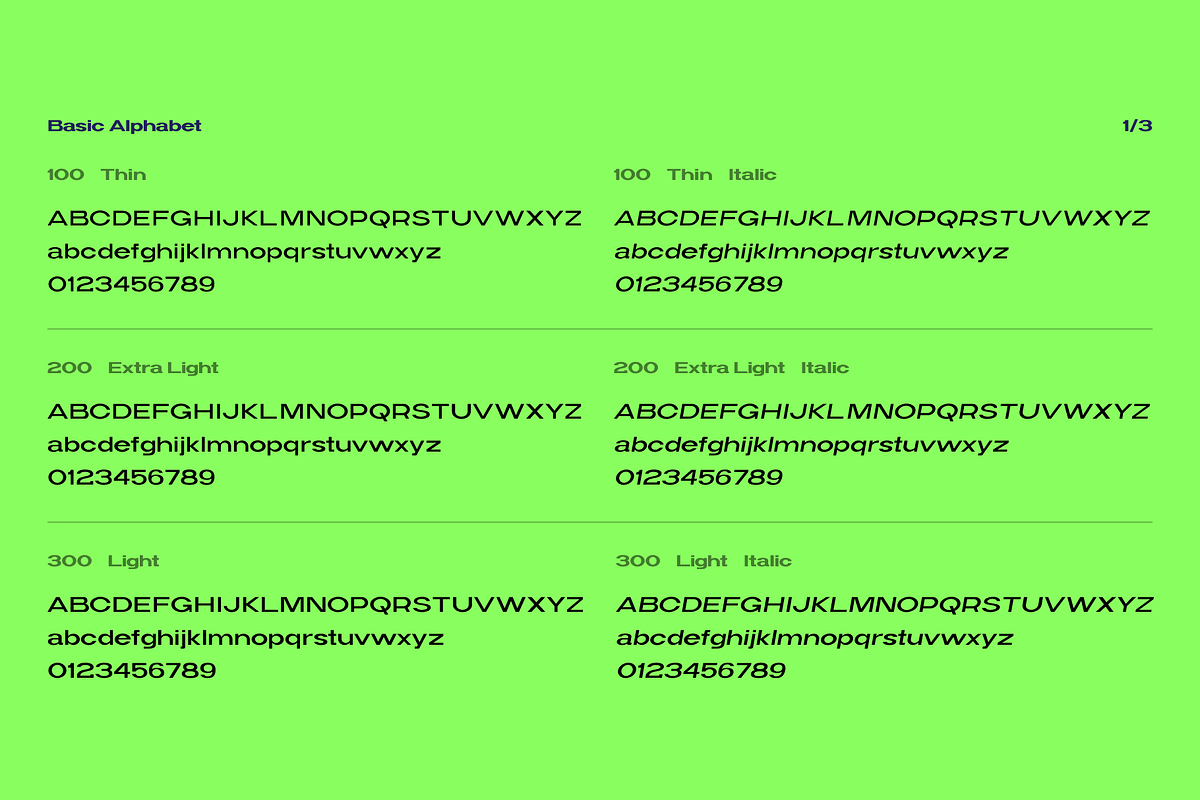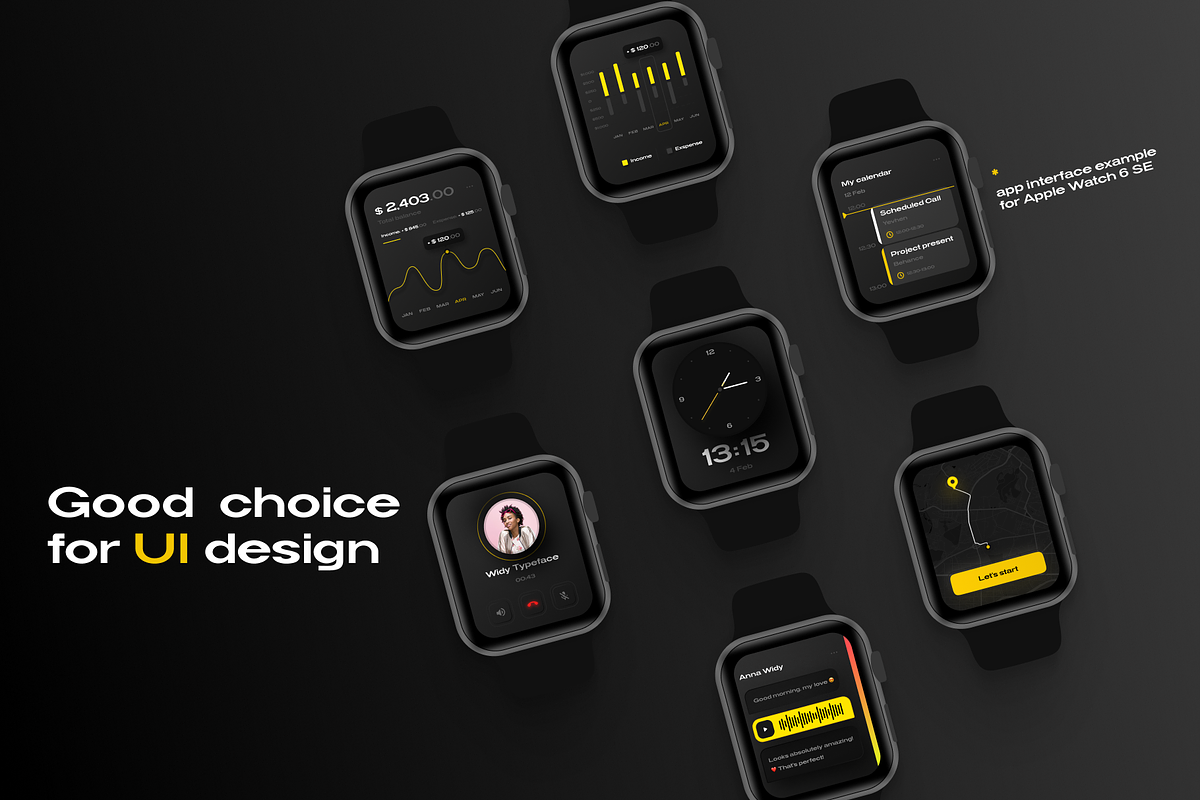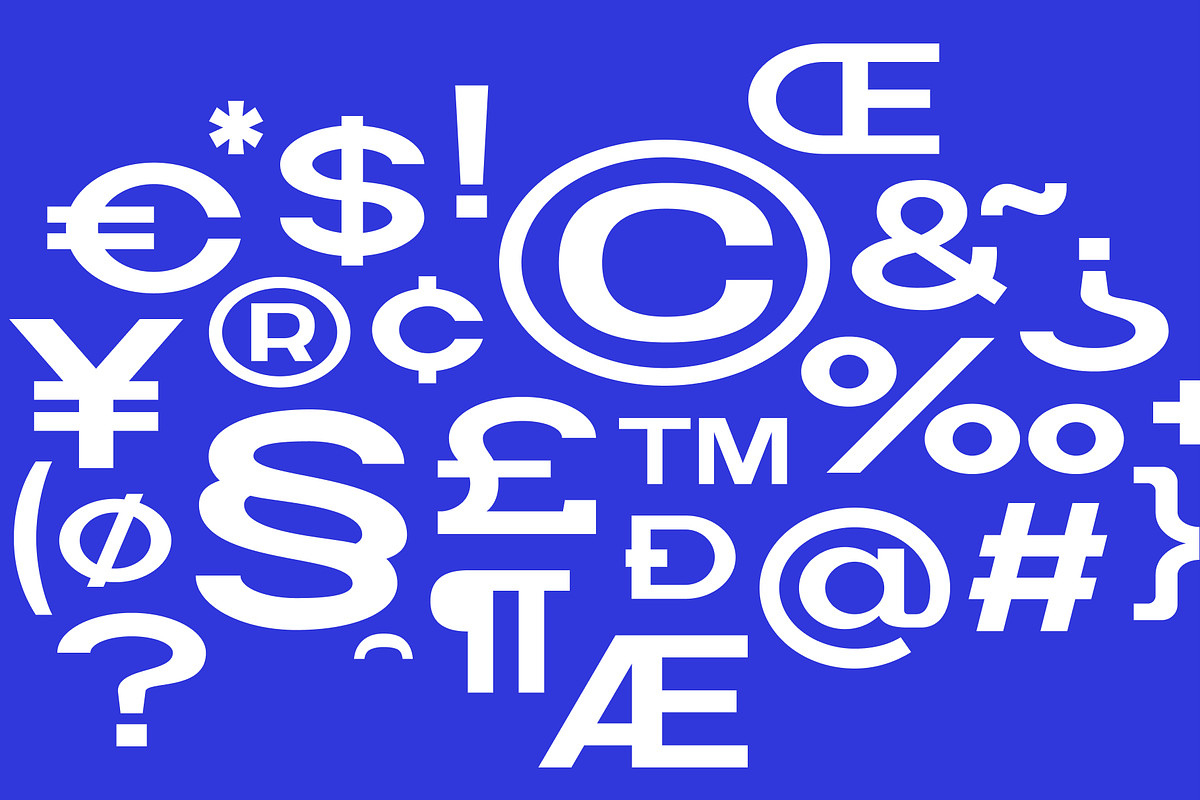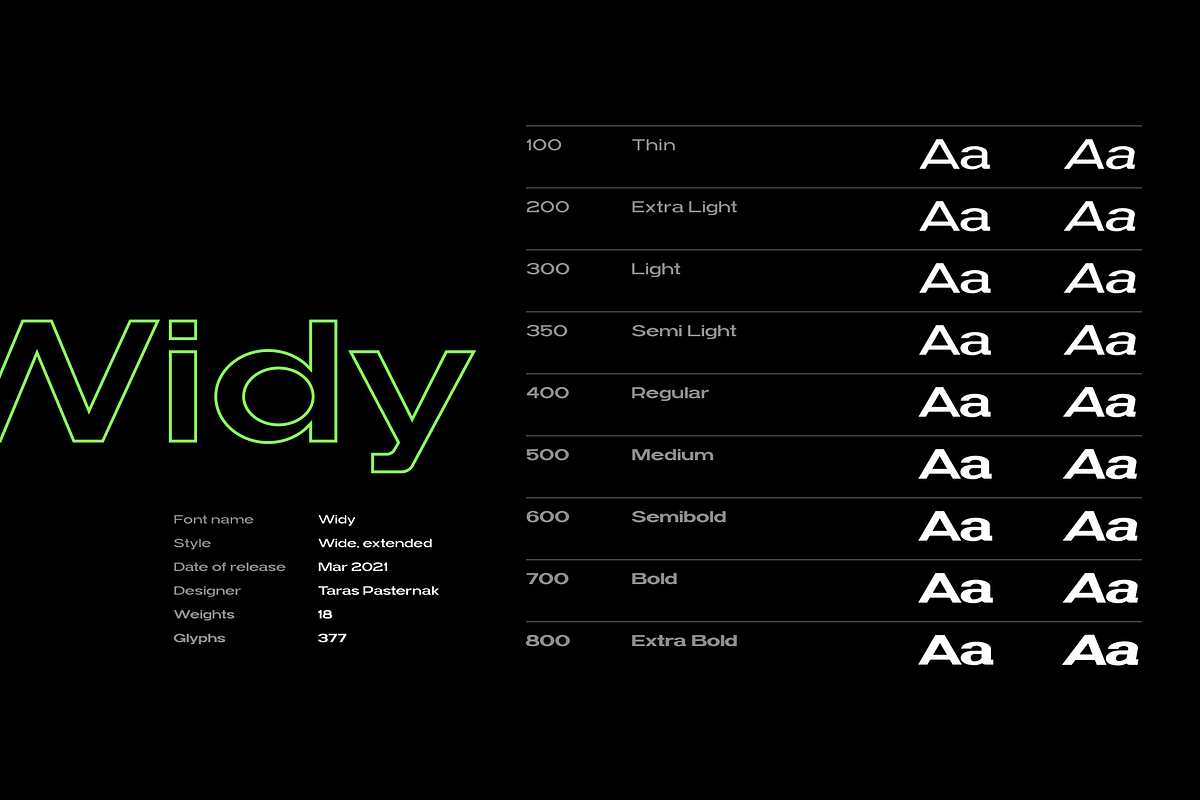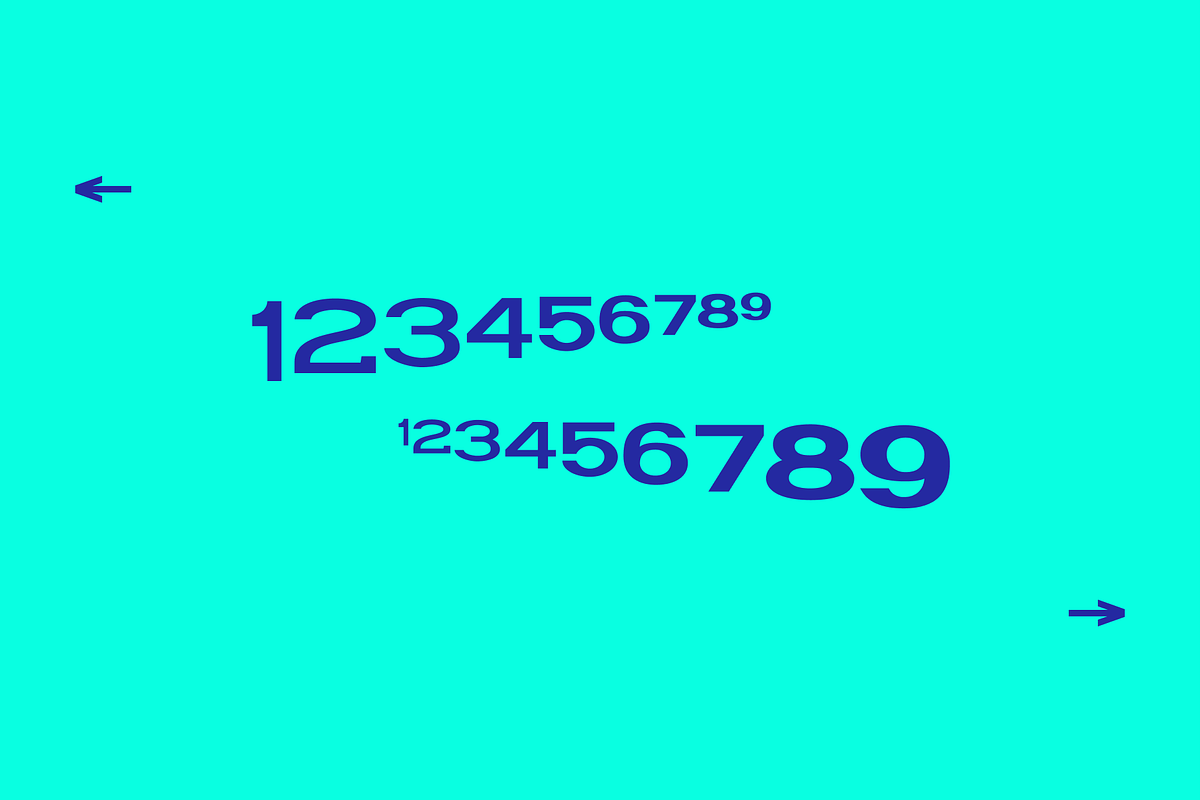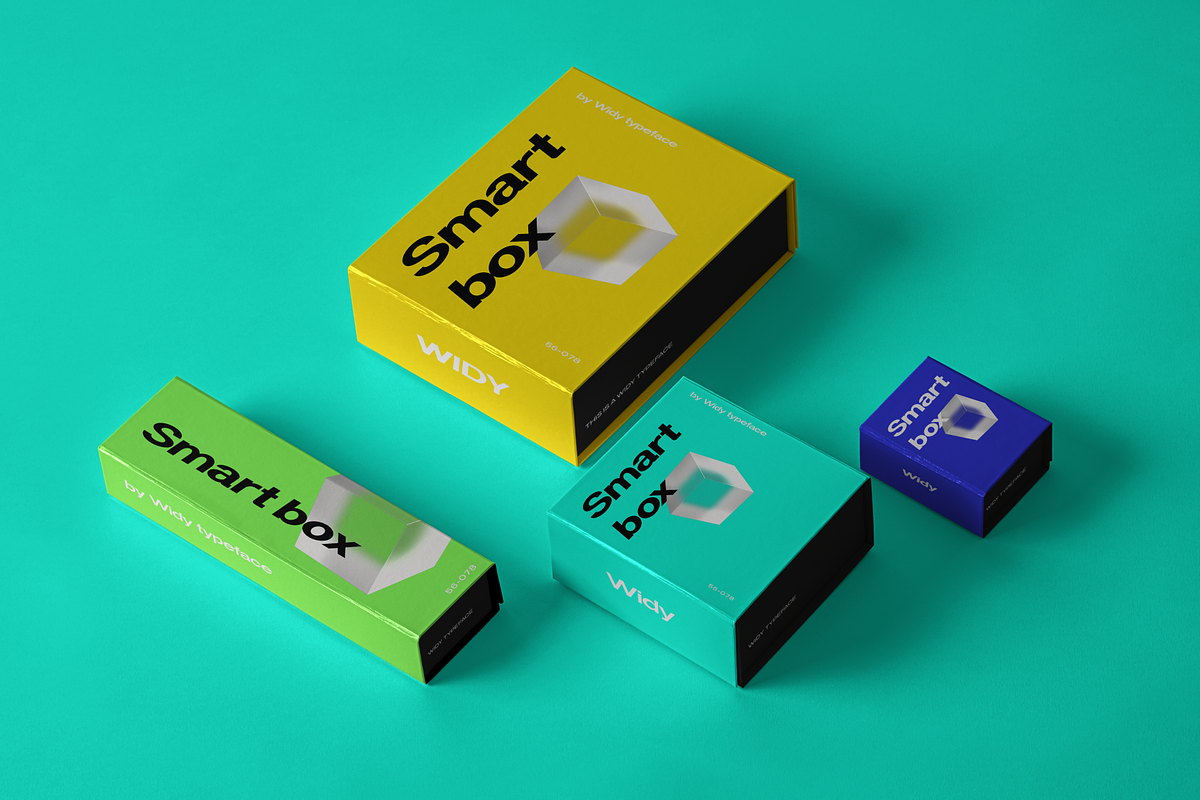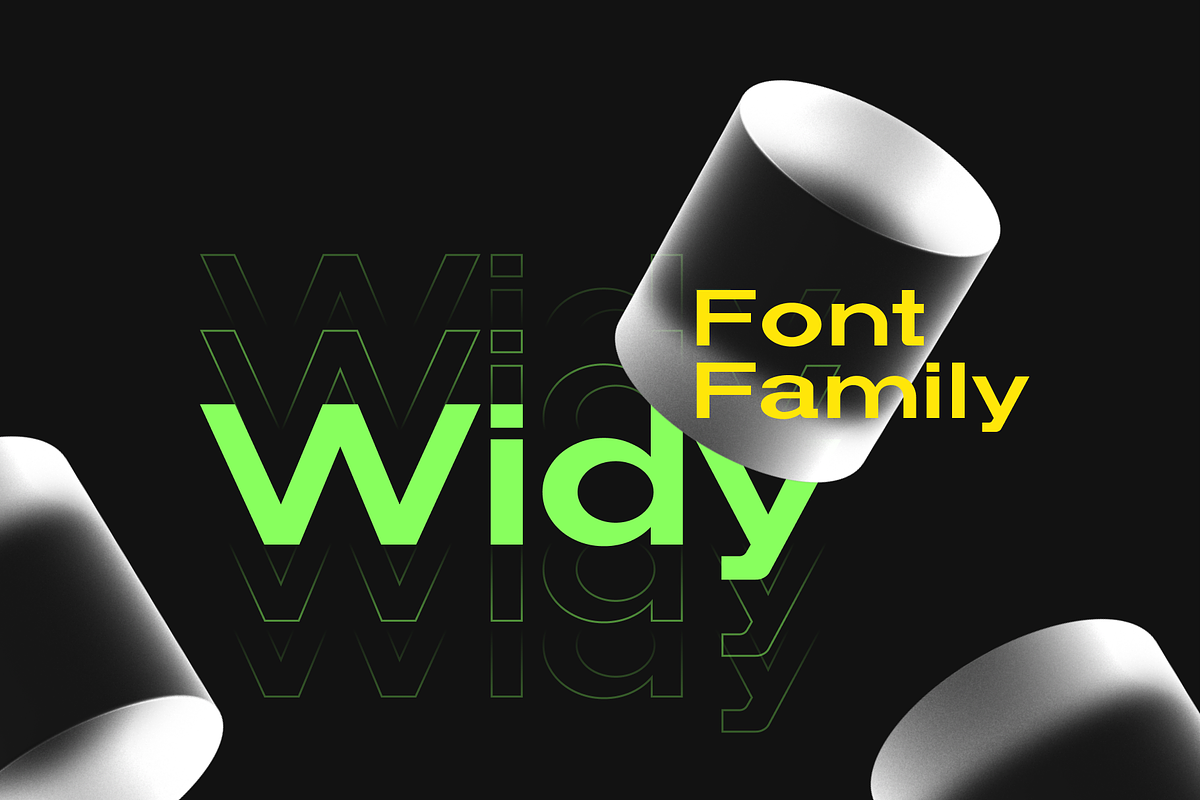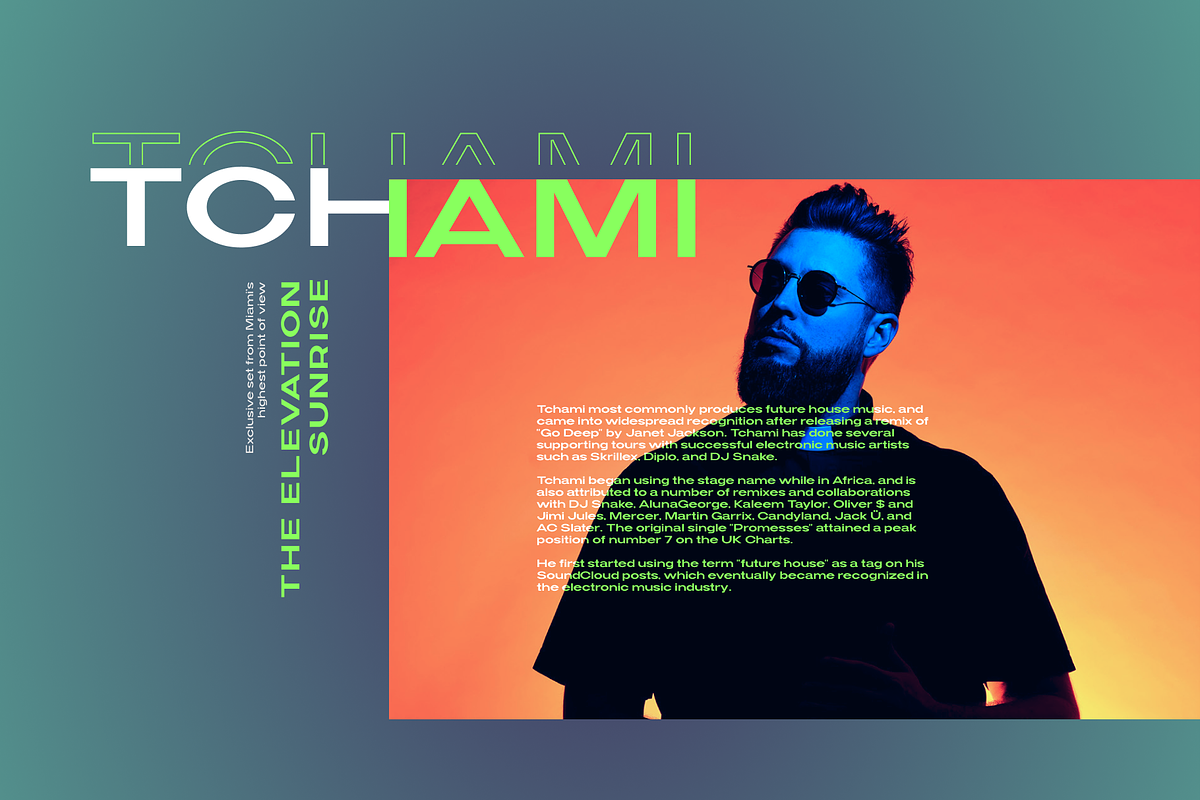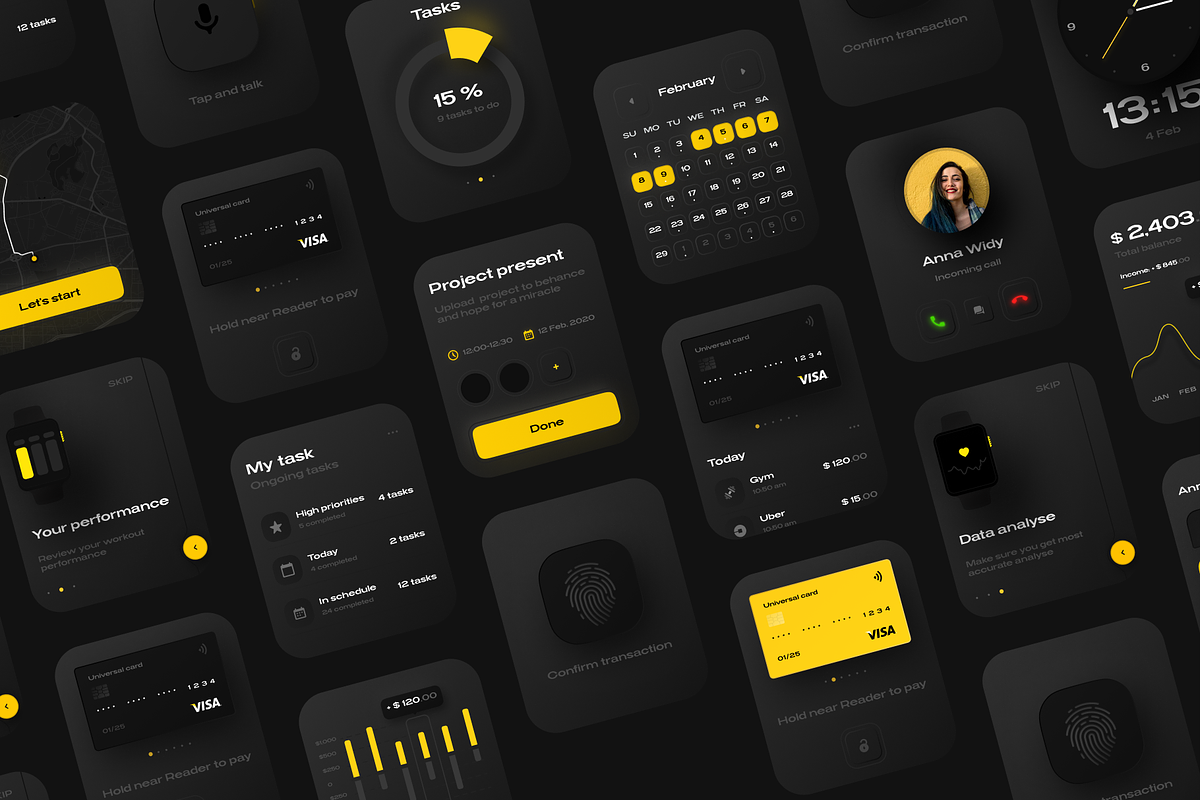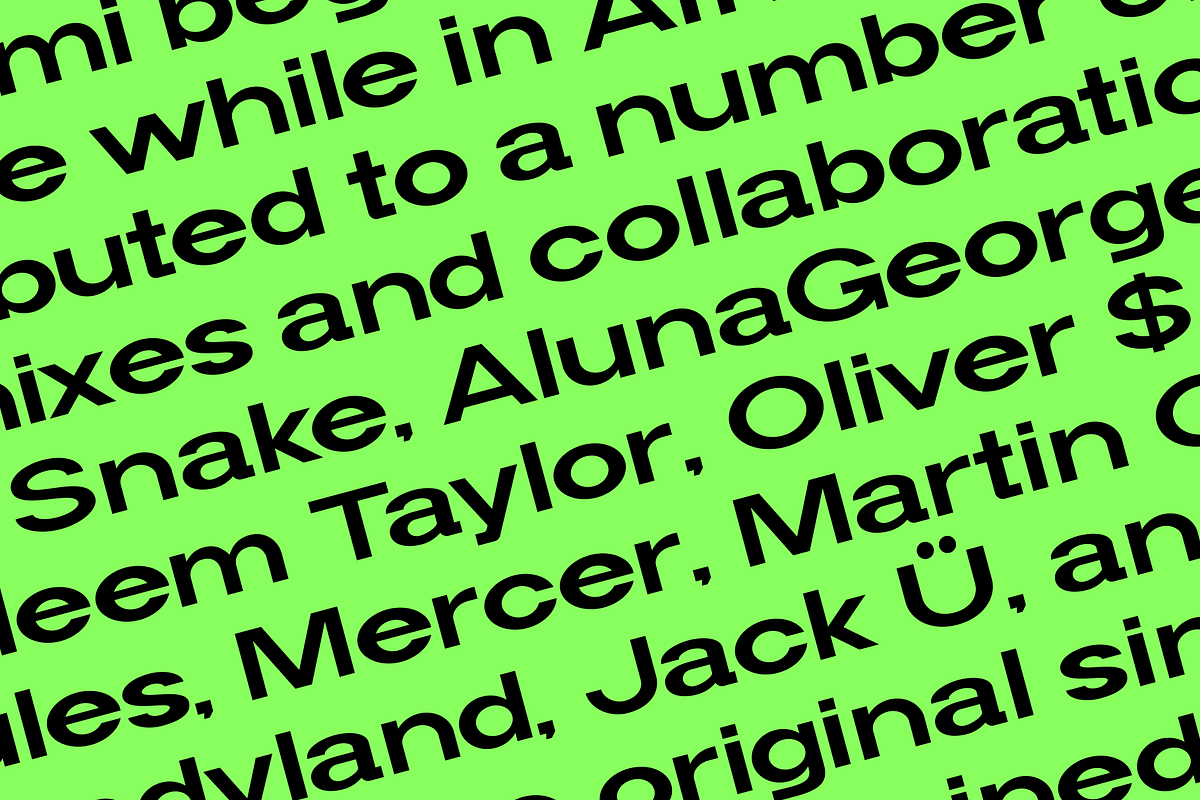
Widy Font Family
Widy is a geometric sans serif font, which features 9 styles. It’s based on the Futura developed by Paul Renner and neo sans-serif fonts. At the same time, it has significant stylistic differences.
Massive lengthy letters are among the unique features of this font. They will help you come up with the perfect composition. The letters have optical compensation, while a circle is the key figure of the fonts.
Due to extended or so-called wide fonts, your project will have a modern and fresh design. The composition will keep its contrast regardless of the background you’ve chosen. The Widy family includes 9 styles: Thin, Extra Light, Light, Semi Light, Regular, Medium, Semi Bold, Bold and Extra Bold. Each of them also has Italic variation. They are perfect for both graphic design projects (posters, brand identities, logotypes) and simple interface designs.
Features • wide, extended style • 9 styles (+ italic variations) • 377 glyphs • released in March 2021